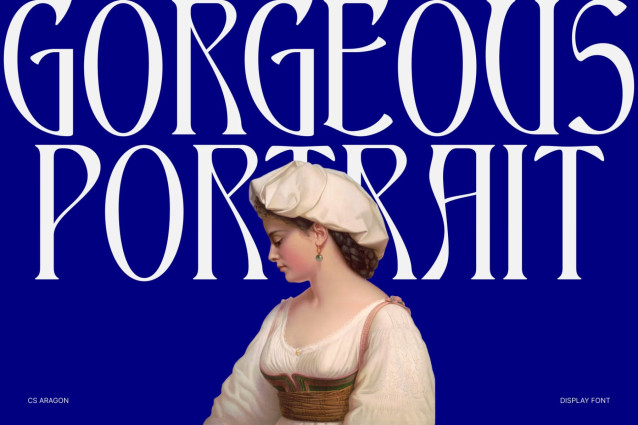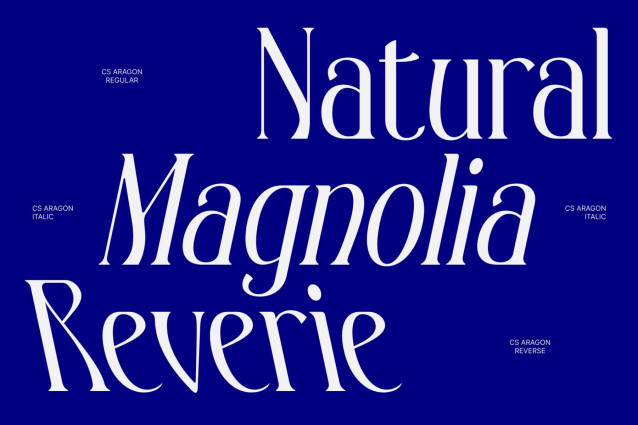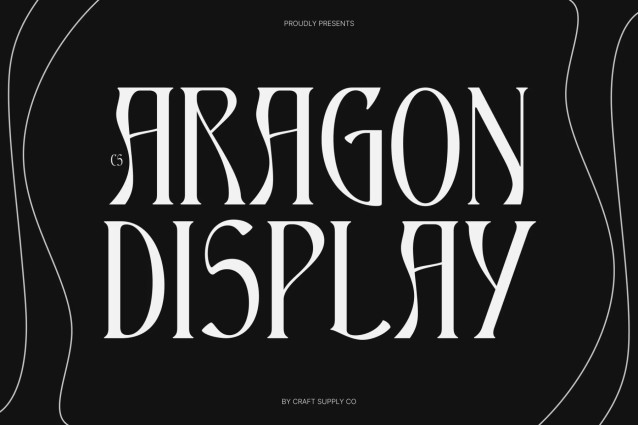
CS Aragon – Modern Serif Font
CS Aragon – Playful Contemporary Serif with Timeless Charm
Contemporary Serif with Fun Personality
This is a serif font that blends classic elegance with a playful contemporary twist. Built from familiar, timeless shapes, this typeface introduces unexpected curves and lively details that bring fresh energy to traditional serif design. It offers a perfect balance between sophistication and creativity, making typography feel polished yet approachable.
Timeless Structure with Unexpected Details
Each letterform is rooted in classic serif foundations, ensuring readability and harmony across layouts. Subtle playful elements and distinctive curves add character and individuality, giving the font a unique rhythm that feels engaging and modern. This thoughtful balance keeps the design refined while allowing it to feel expressive and lively.
Stylish Yet Relaxed Character
This font carries a confident style without feeling overly formal. Its friendly personality makes it versatile for a wide range of creative directions, from elegant branding to fun editorial layouts. The result is a typeface that feels professional, stylish, and effortlessly charming.